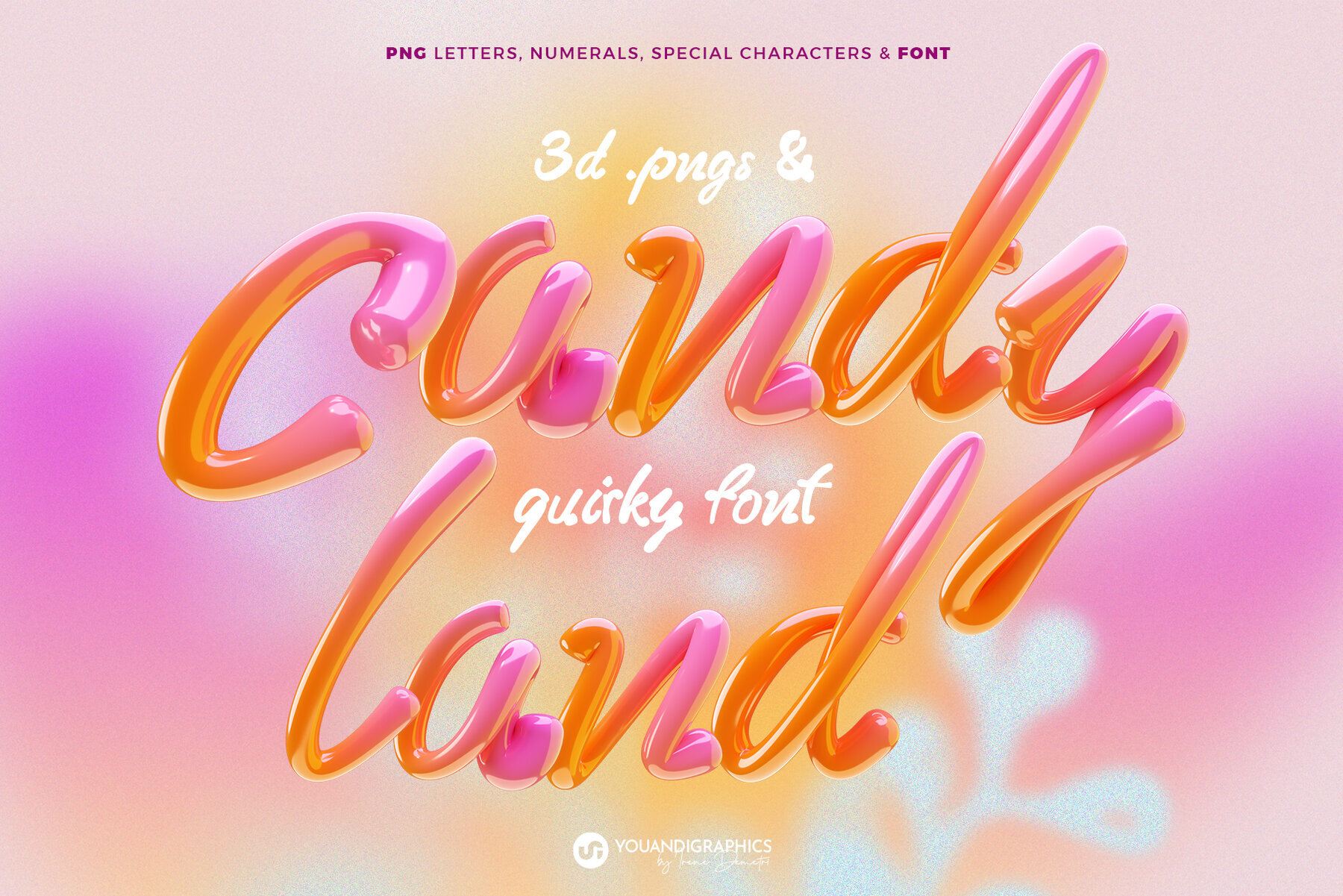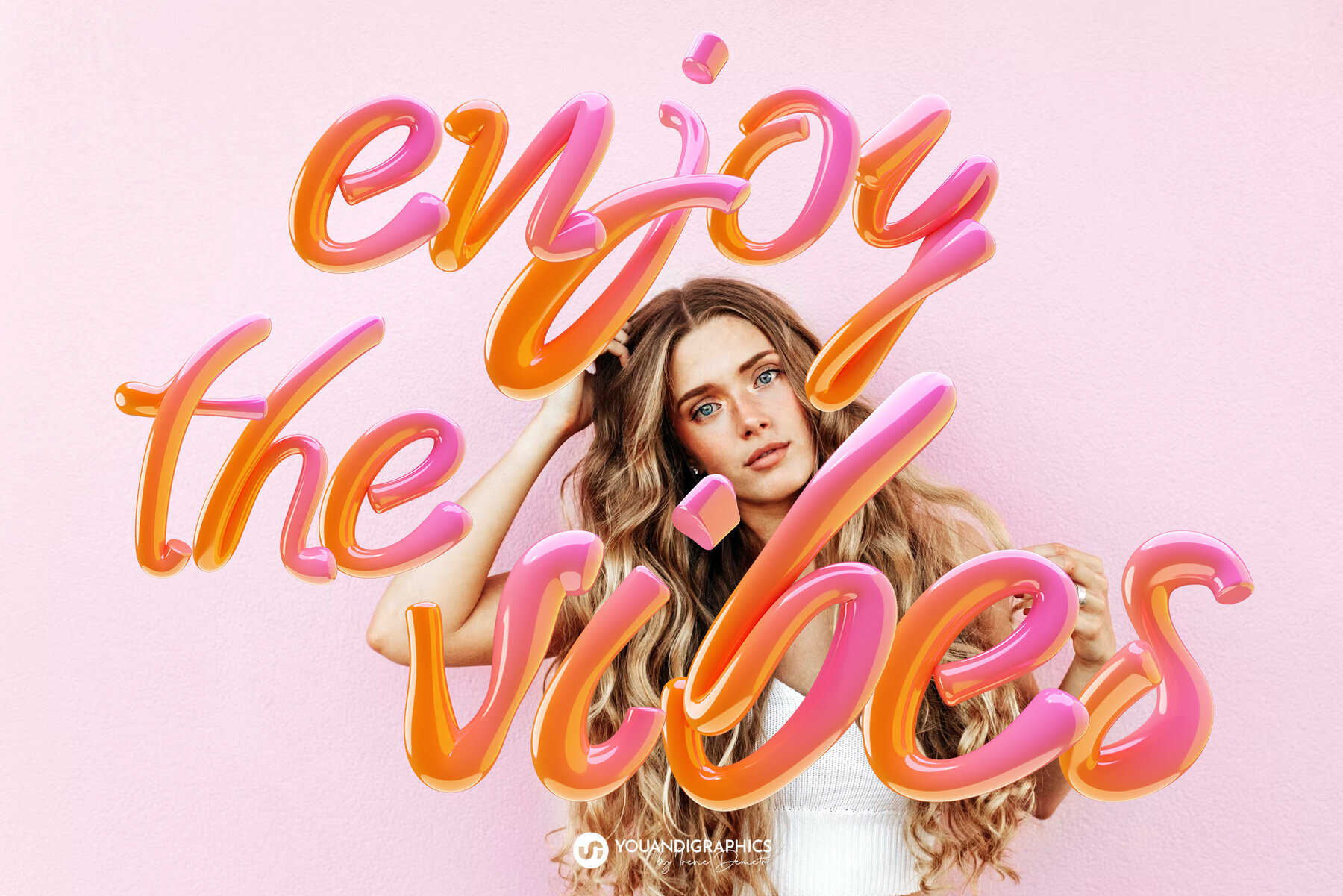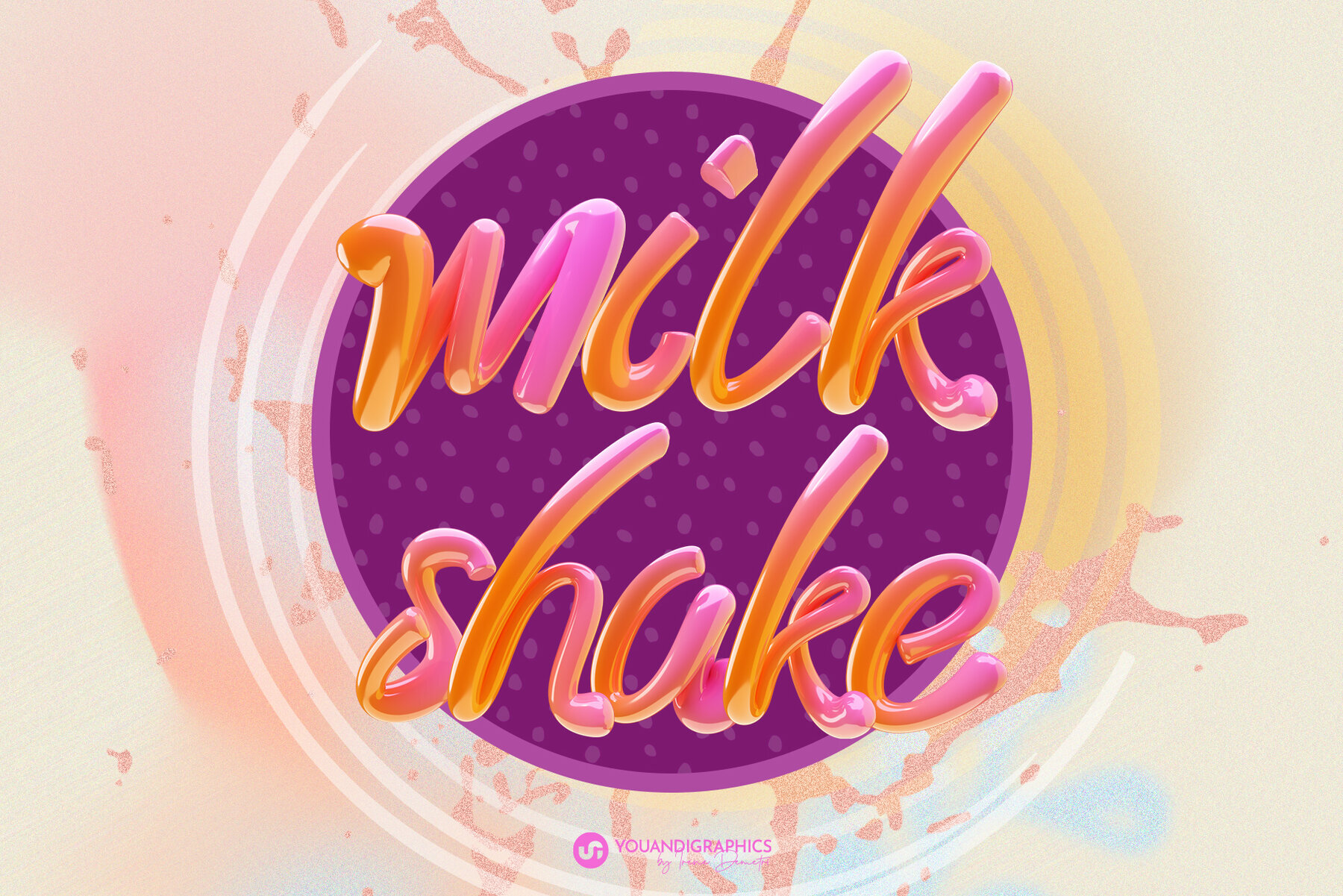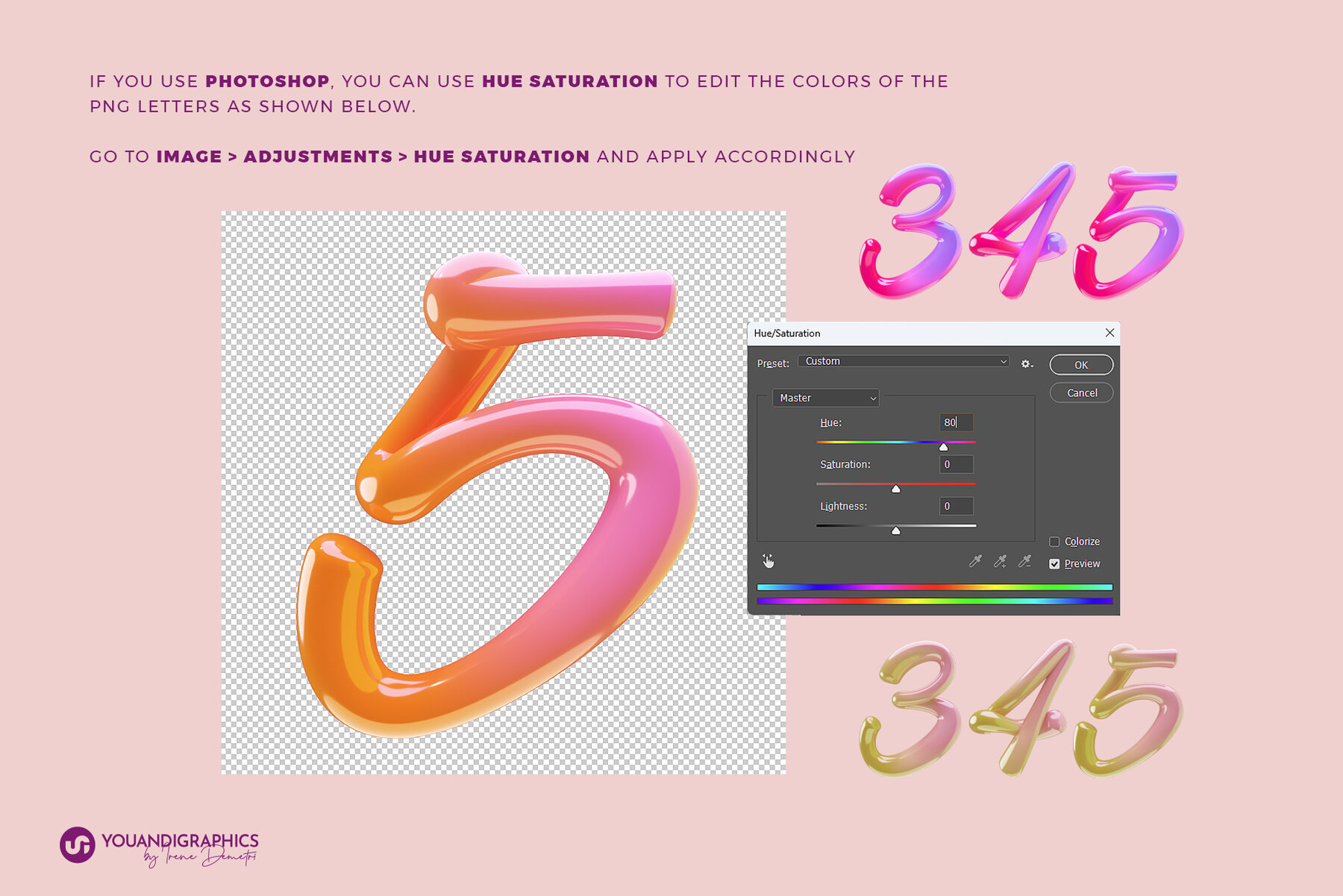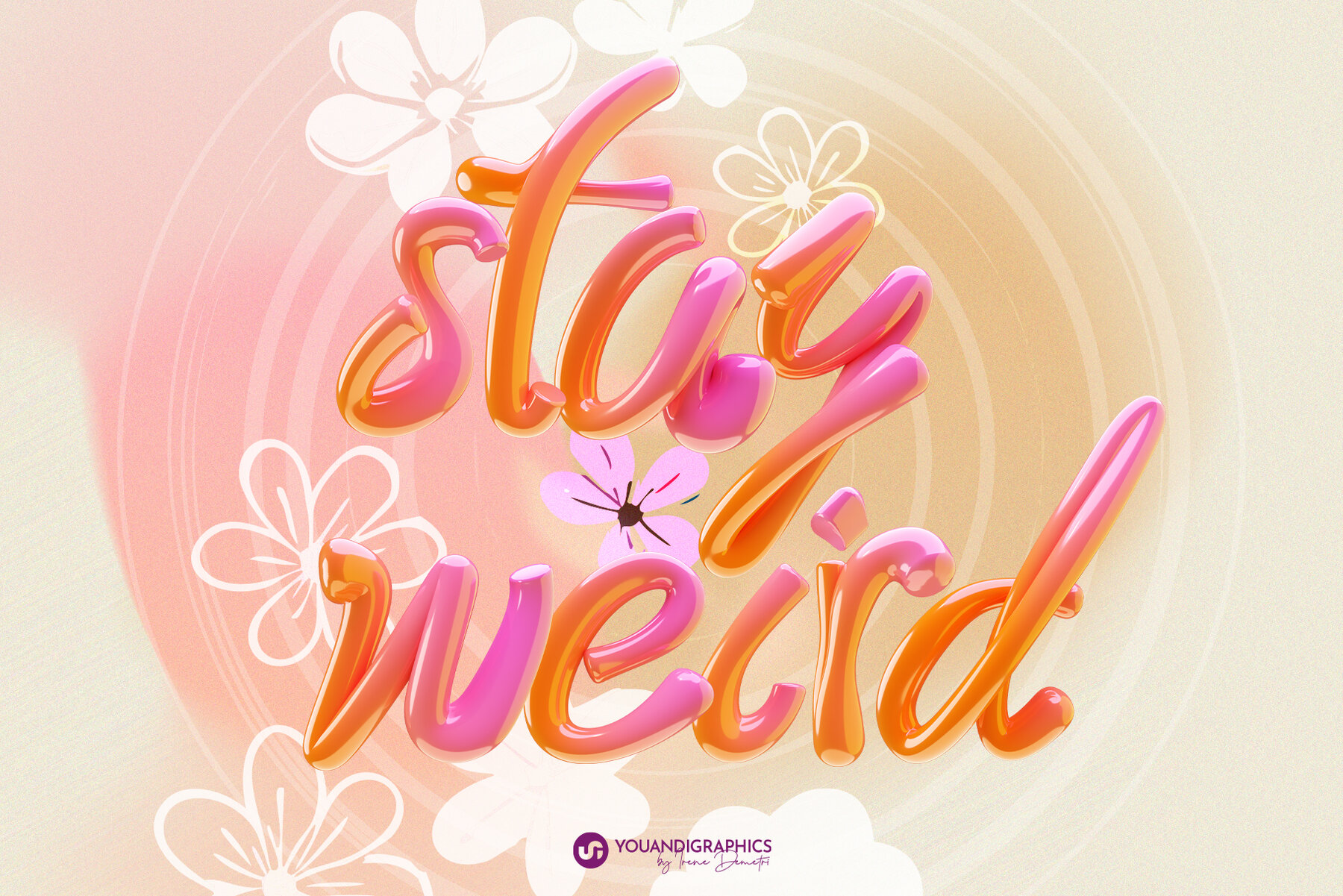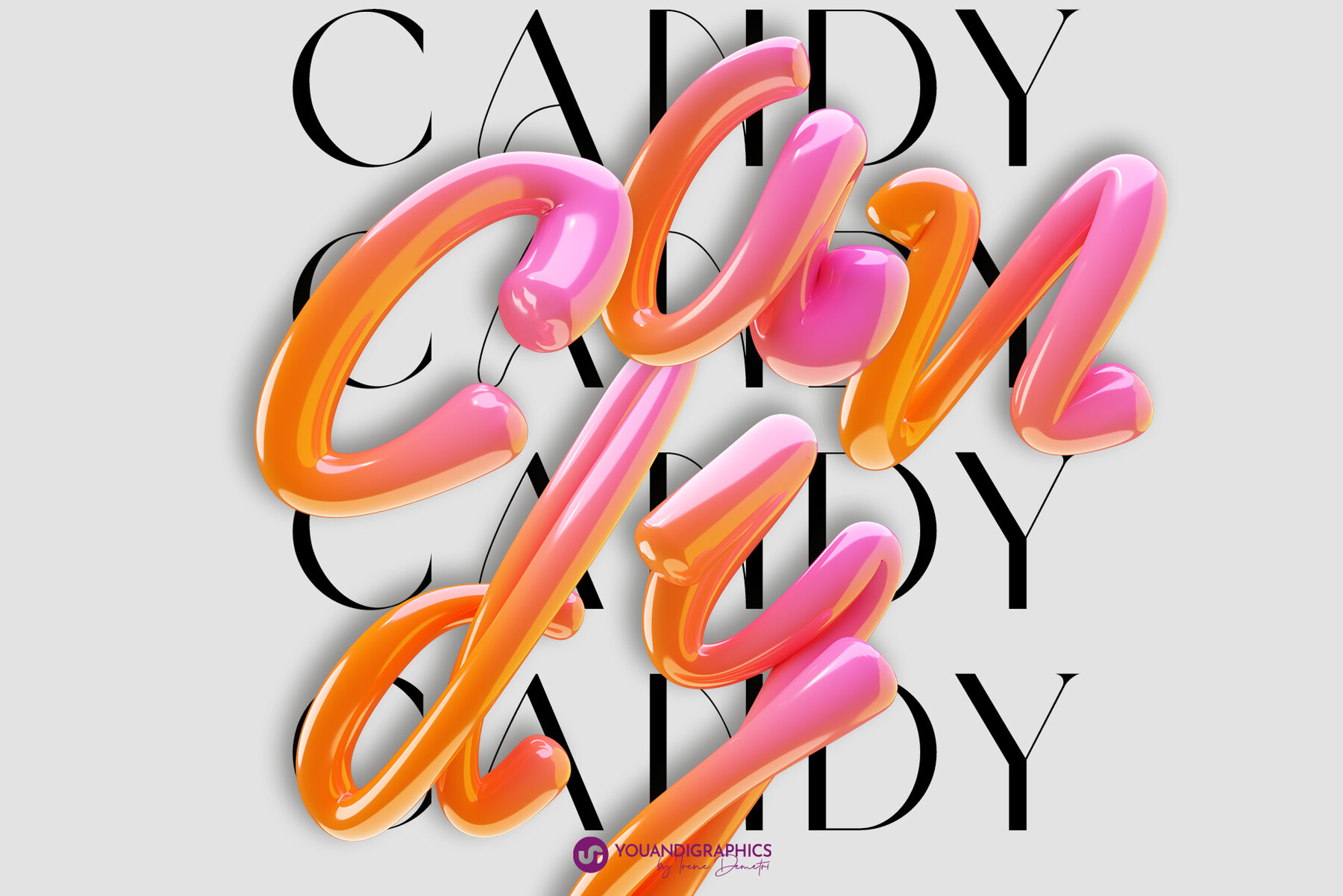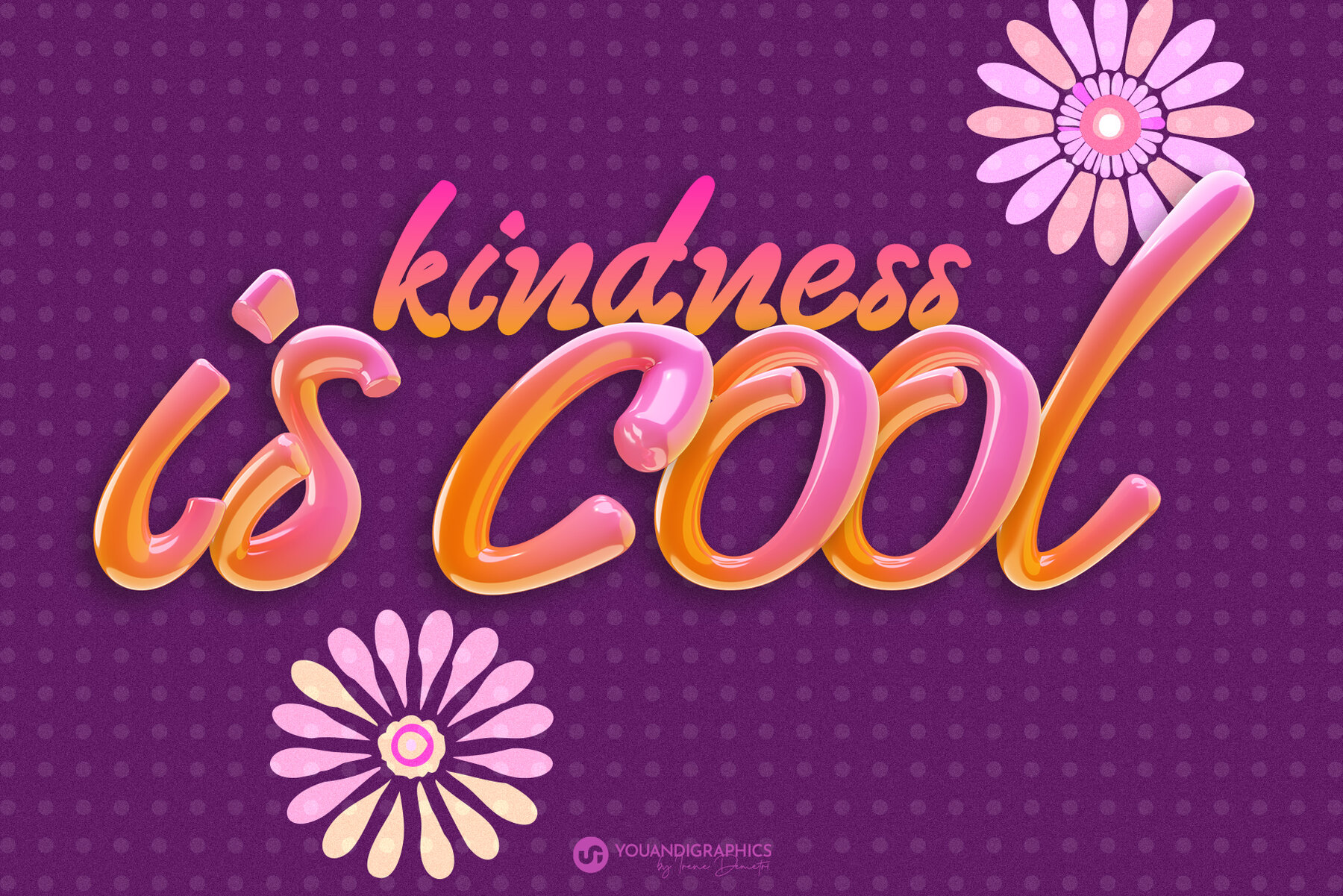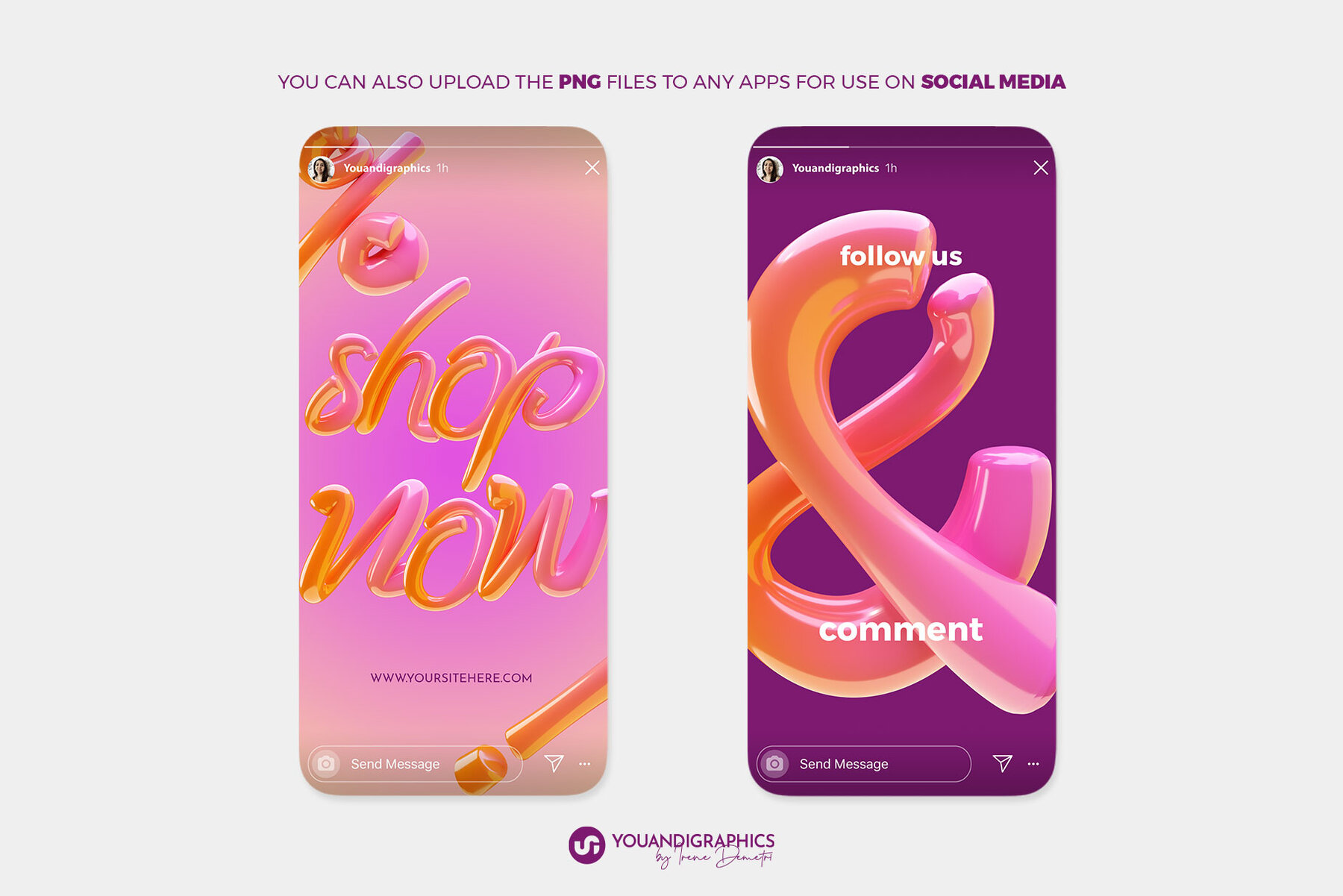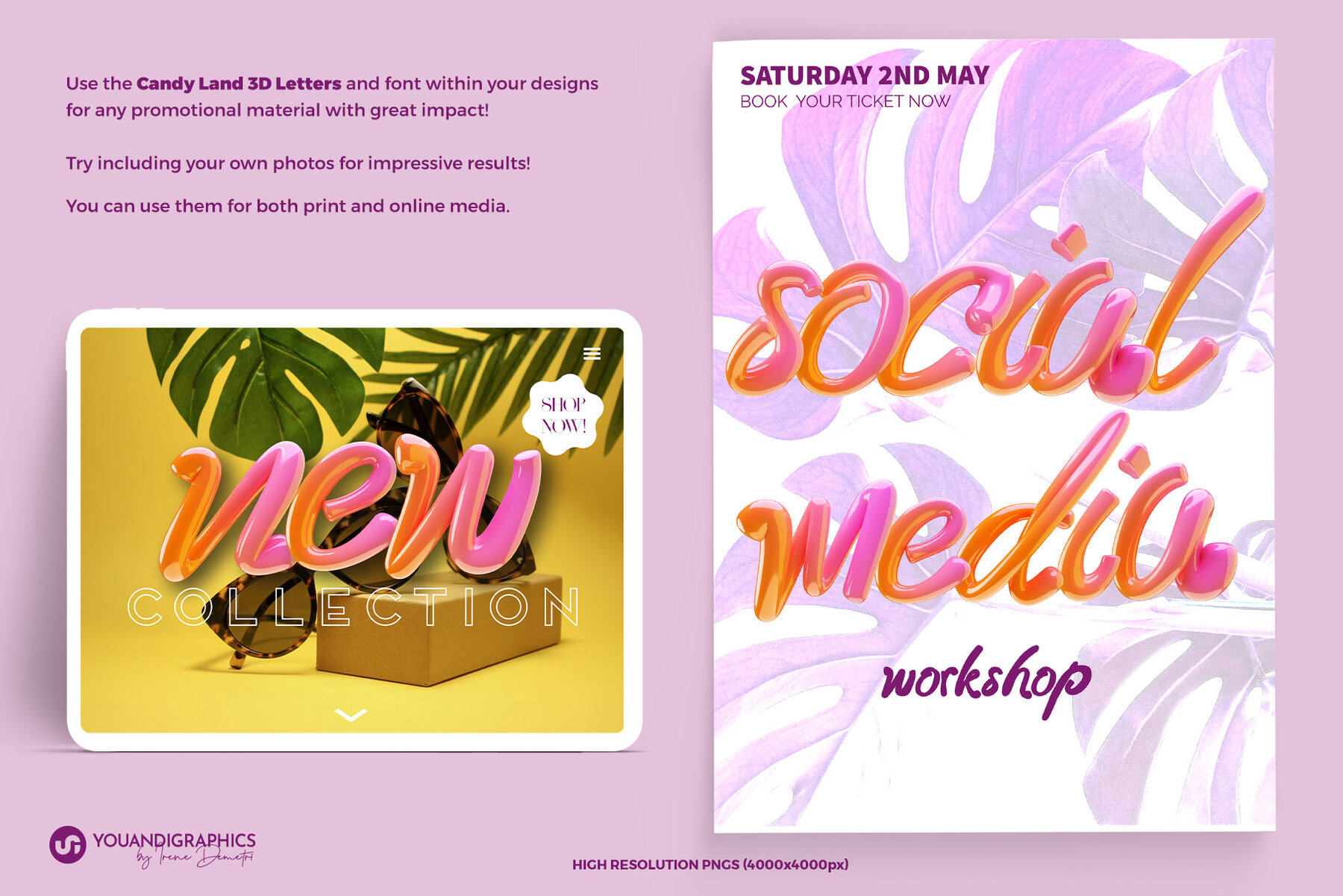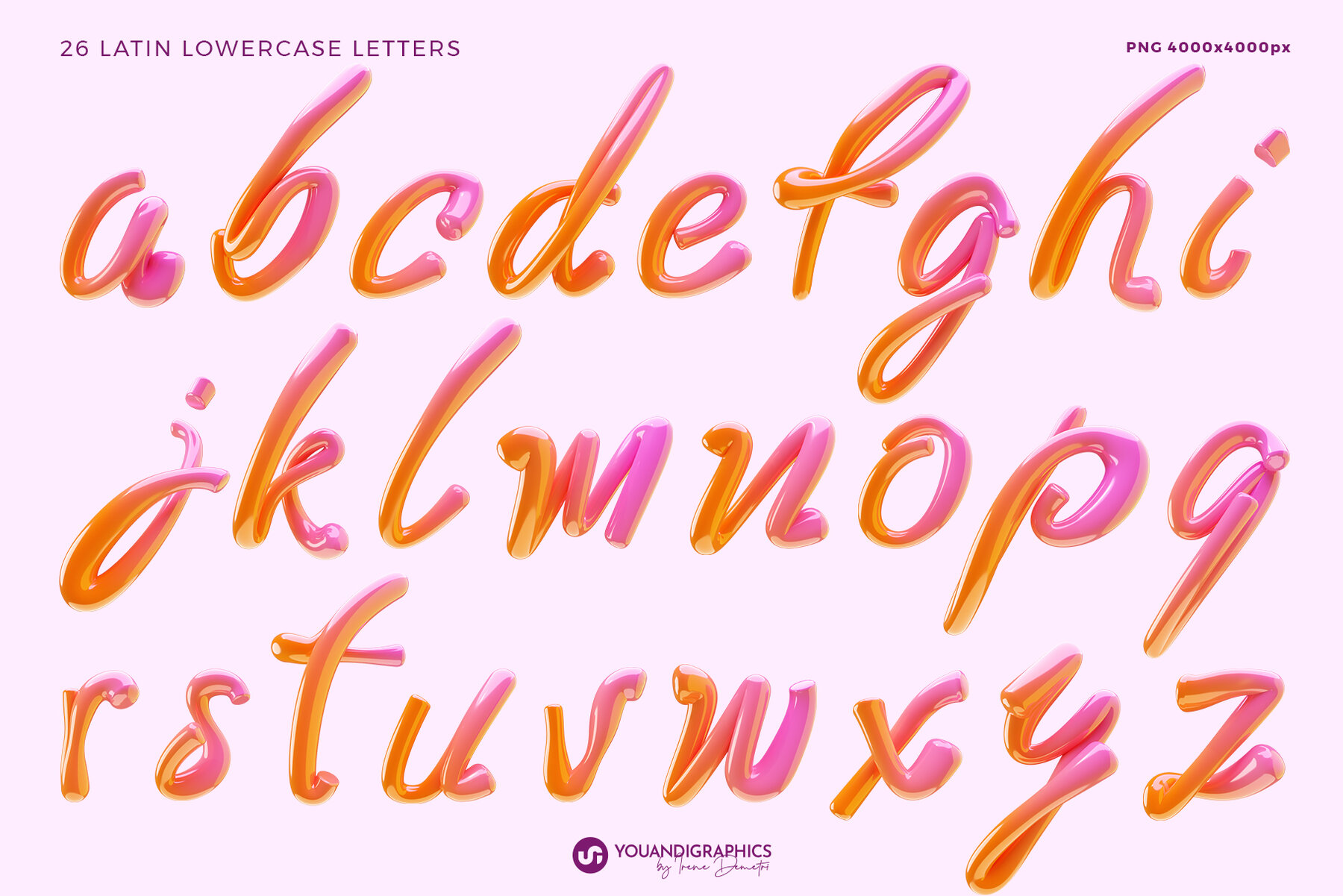
Candy Land 3D Letters and Font Graphics
Candy Land 3D Letters and Font is a collection featuring vibrant 3D PNG letters, numerals, and characters crafted in a fun glossy, bold gradient, with a candy like, playful feel. Additionally, enjoy the included font featuring plain flat characters for added flexibility in your creative projects. WHAT IS INCLUDED IN THIS PRODUCT: 26 PNG - Latin Lowercase Letters - Elements - approximately 4000x4000px 10 PNG - Numerals - Elements - approximately 4000x4000px 19 PNG - Punctuation, Symbols, Math - Elements - approximately 4000x4000px Font with all type elements flat (with no 3D effect)